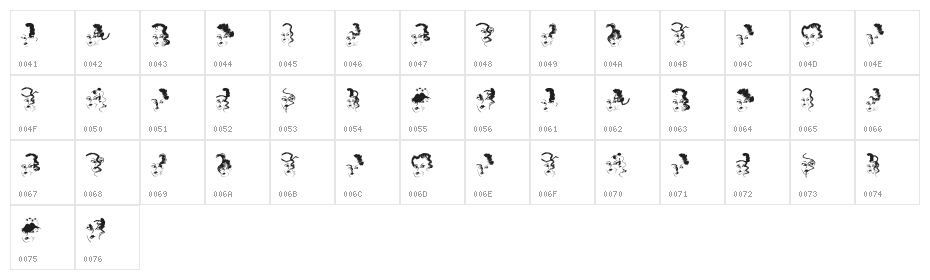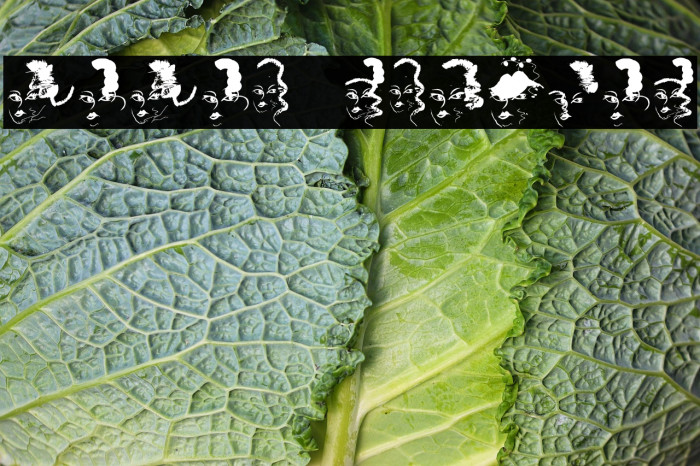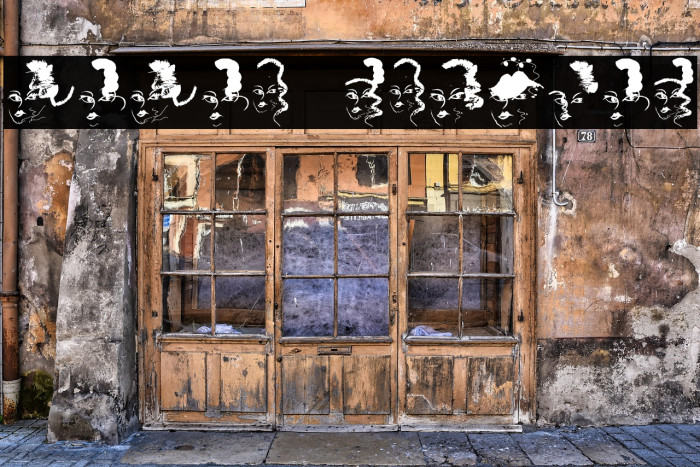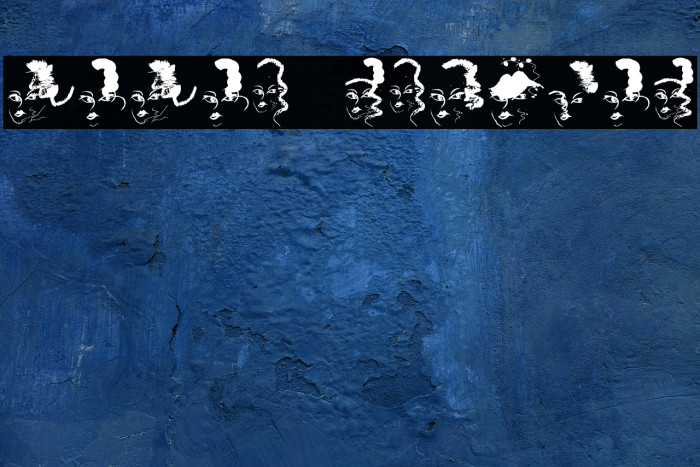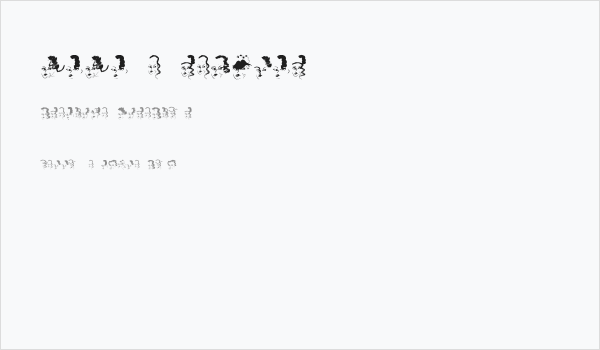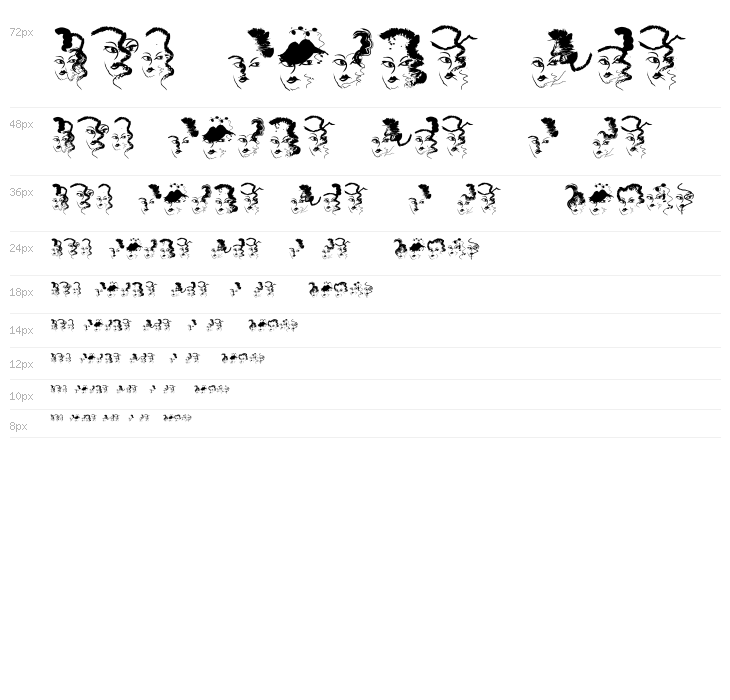
Babaye Regular Font
✎ Curly
| Cas d'utilisation | Logos, Art projects, Posters |
| Projets proposés | Ideal for creative projects such as art posters, album covers, or any design work that requires a unique and visually striking typeface. |